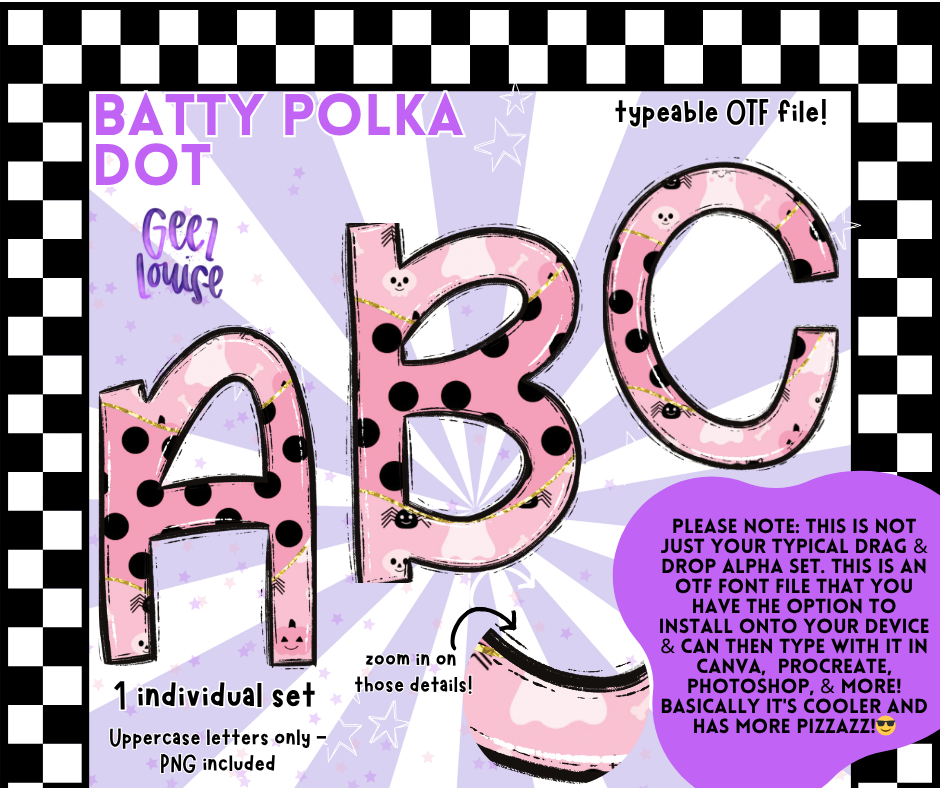
Batty Polka Dot OTF Font + PNG Alpha Set
If spooky had a cute side — this would be it. Meet Batty Polka Dot: the sister set to Batty, but this time she’s rocking pink with bold black polka dots, creepy-cute ghosts, and stitched-up sass.
🎃 Uppercase letters only
🎃 Adorable and eerie detail work that makes your projects pop
Perfect for Halloween graphics, girly goth vibes, or anytime you want your fonts to scream style (without actually screaming).